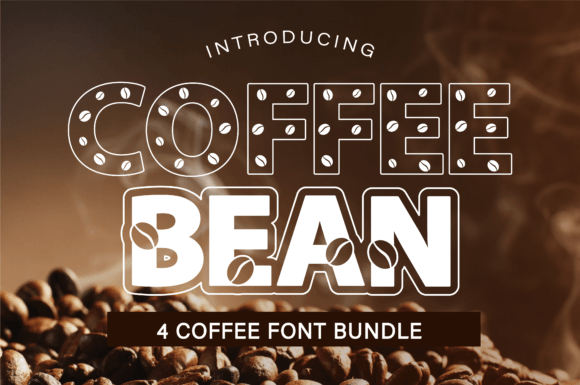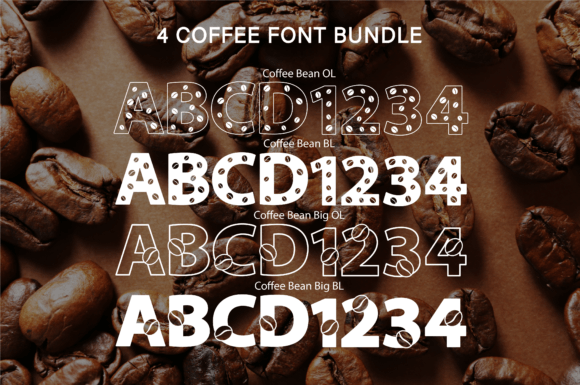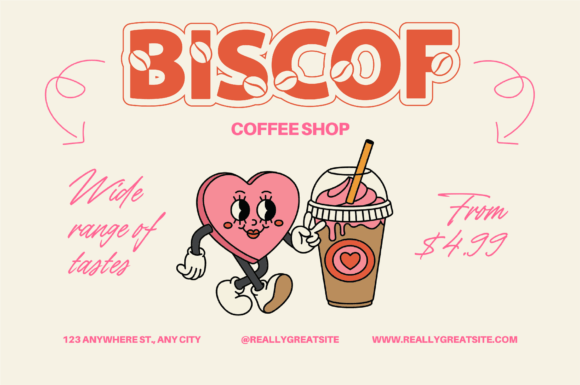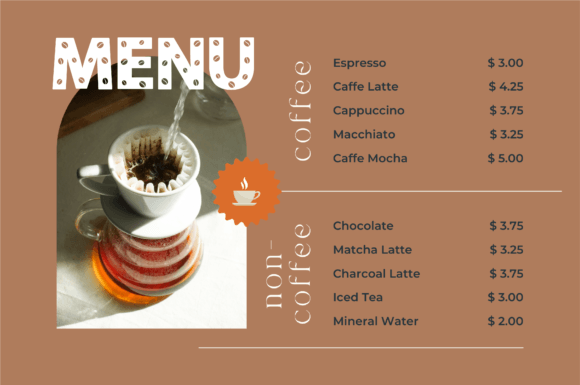
Coffee Bean Font: A Bold Decorative Display Font
About the Coffee Bean Font
Discover the charm of Coffee Bean Font. This font is a perfect blend of modern aesthetics and classic appeal. Coffee Bean included 4 font bundle. Each one is decorate with coffee bean detail in outline and bold style. Perfect for create a coffee menu, brand theme, online post title, etc.
Coffee Bean Font’s bold, decorative style makes it ideal for headlines, short text blocks on packaging, and branding elements such as logos or short taglines. It works well for posters and social media graphics where a strong visual impact is desired. However, its ornate detailing makes it unsuitable for body text or lengthy paragraphs; readability suffers at smaller sizes. Avoid using it in user interfaces (UI) or situations requiring high legibility.
To complement its slightly playful yet robust character, pair Coffee Bean Font with a clean sans-serif like Open Sans for body text or a classic serif like Garamond for a more traditional feel. A minimalist geometric sans-serif could also create a striking contrast, enhancing the Coffee Bean Font’s decorative elements.
The overall personality is best described as friendly and approachable, yet confident and memorable. It is perfectly suited for brands associated with coffee shops, bakeries, or other businesses focused on warmth and artisanal products.